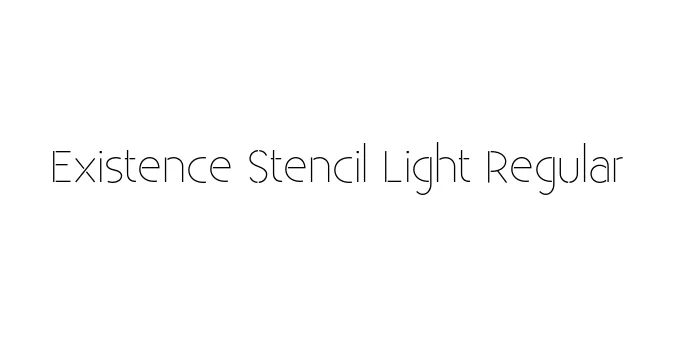
Existence Stencil Light Regular
Designed by Yeah Noah
Existence Stencil Light is a contemporary monolinear sans-serif typeface that evolved from the original Existence Light family. Designed with a focus on geometric purity and minimalist aesthetics, this stencil variation introduces subtle breaks in the letterforms, transforming a clean sans-serif into a functional yet stylish industrial face. Its ultra-thin weight ensures that it remains elegant and sophisticated, avoiding the heavy, aggressive feel often associated with traditional military-style stencil fonts.
The font is particularly effective for modern branding and architectural projects where clarity and a high-end feel are paramount. Because of its light stroke width, it is best suited for display purposes rather than long-form body text. Whether used in digital interfaces or physical signage, Existence Stencil Light provides a distinct, open-source solution for designers seeking a balance between mechanical precision and artistic minimalism.
Existence Stencil Light Regular Best Uses
Ideal for minimalist logos and high-end corporate identities.
Works perfectly for large-scale display use in modern art and architecture posters.
Provides a clean, industrial look for interior wayfinding and environmental graphics.